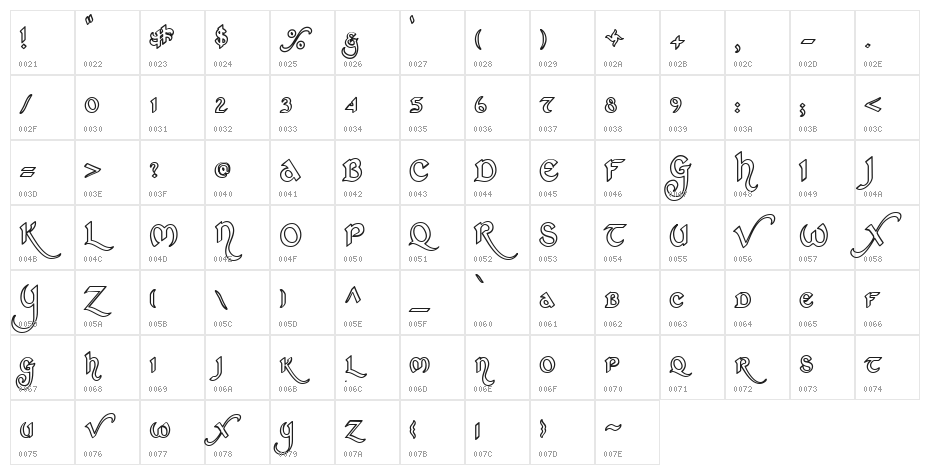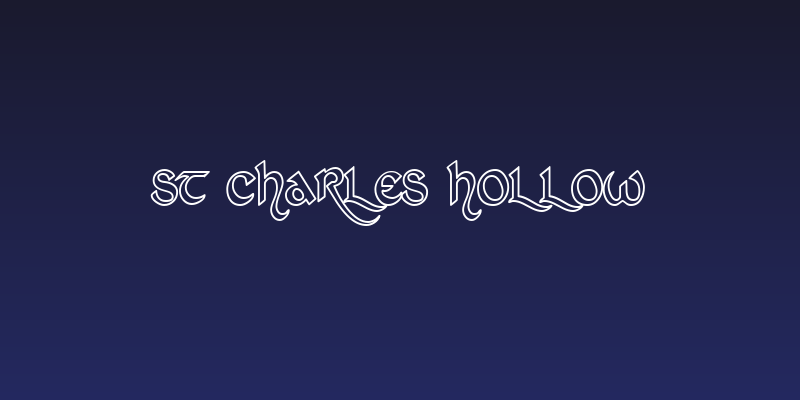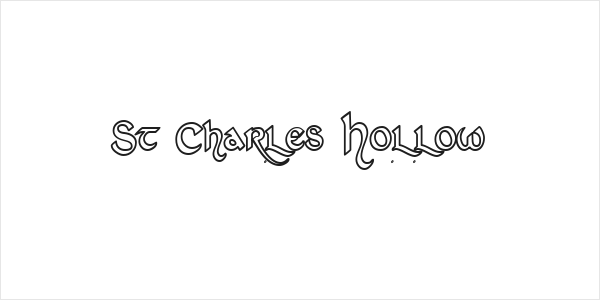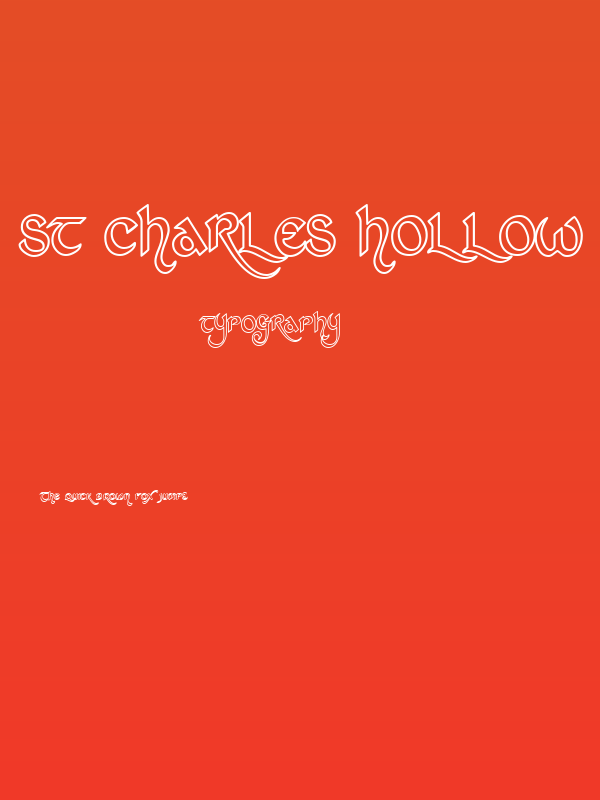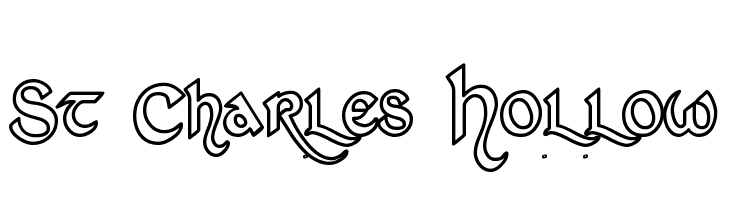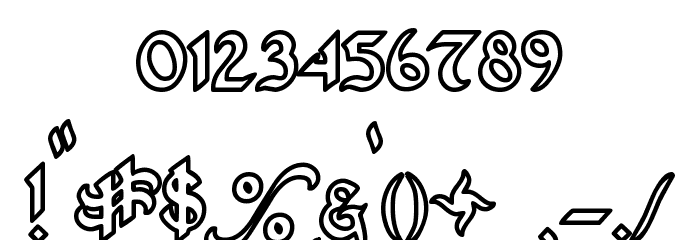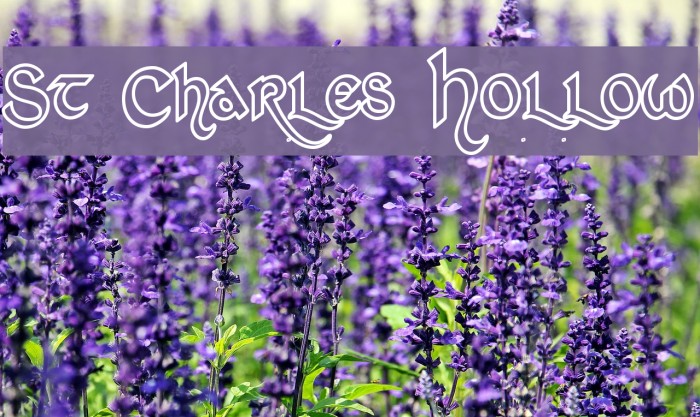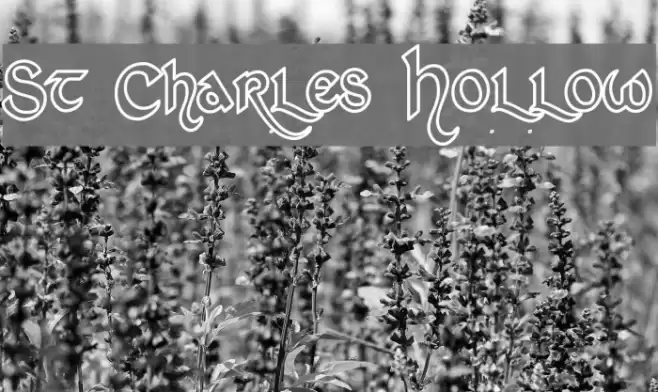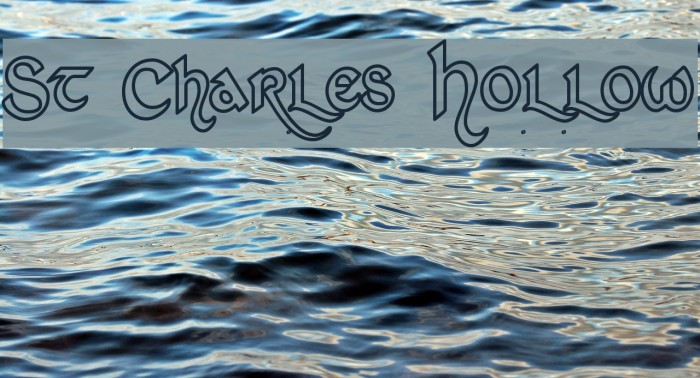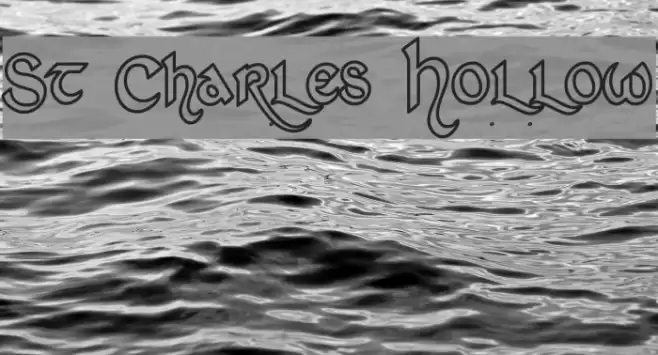
St Charles Hollow Font
St Charles Hollow Description
This font features a decorative and intricate design with a hollow interior, giving it a unique and eye-catching appearance. The characters are stylized with elaborate curves and sharp angles, creating a sense of elegance and sophistication. The uppercase and lowercase letters maintain a consistent style, while the numbers and special characters complement the overall aesthetic. The font's artistic flair makes it suitable for projects that require a bold and distinctive look.